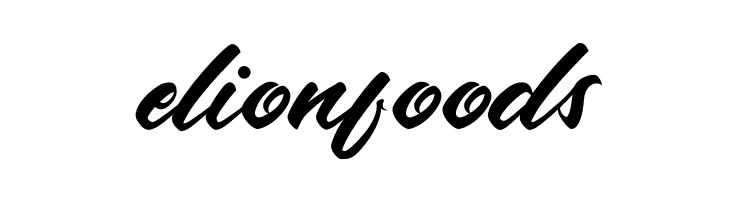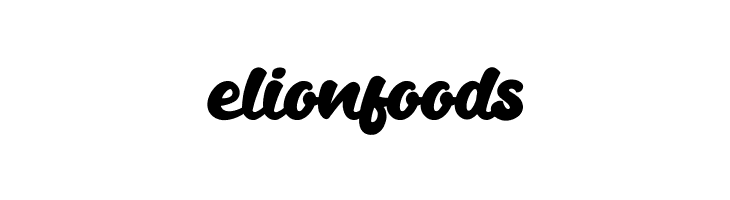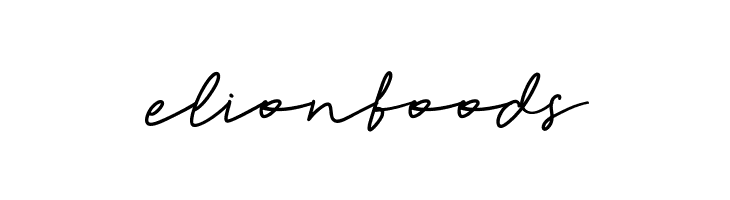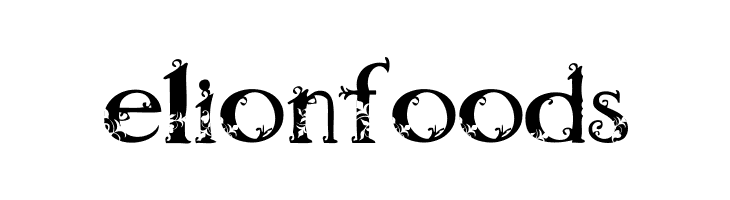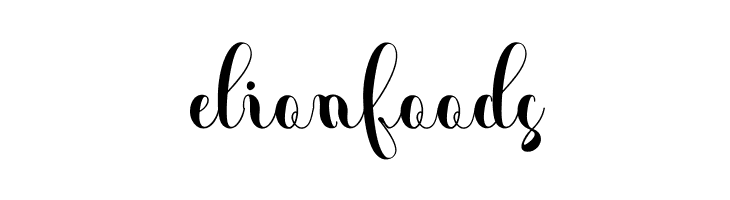
A bold, cursive font with smooth, flowing lines and a playful elegance.
A playful, artistic script font with flowing, cursive design.
A lively, handwritten font with fluid strokes and a modern, casual aesthetic.
An elegant, flowing script font with ornate uppercase and smooth lowercase characters.
An elegant script font with flowing, cursive style and intricate flourishes.
A bold, decorative font with vintage flair and high contrast strokes.
A bold, flowing script font with elegant, connected characters.
A bold, expressive script font with flowing, cursive letterforms.
A fluid, handwritten script font with a casual elegance.